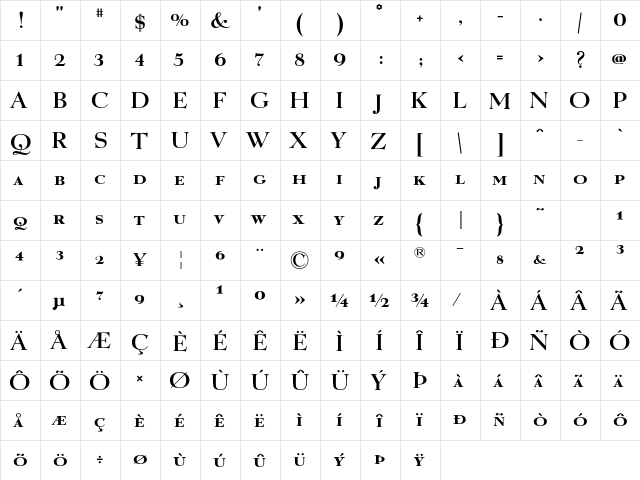
LucianardSC Regular
Design Context for LucianardSC Typeface
LucianardSC is a composed and adaptable typeface that performs quietly and consistently across a wide range of design contexts.